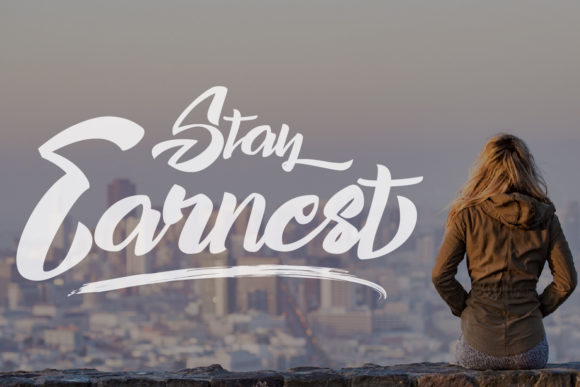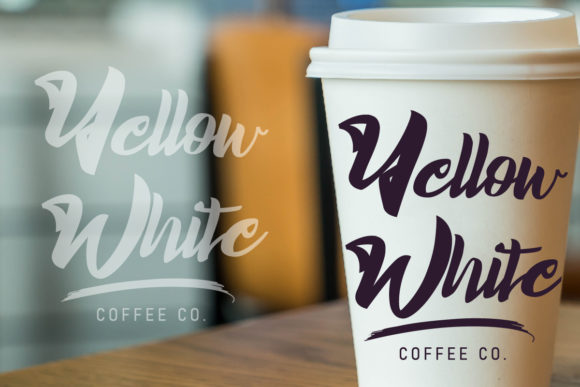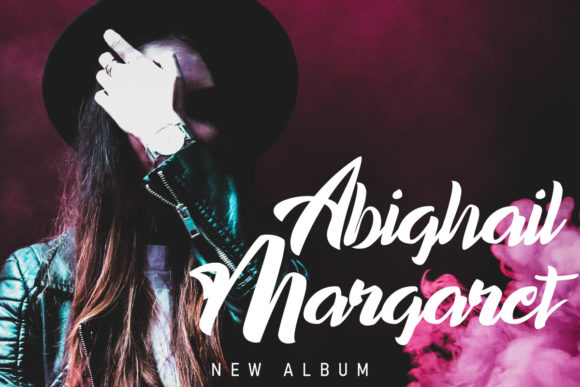
Introduction to Insightful Font
As a designer, have you ever found yourself pouring over a blank canvas, waiting for inspiration to strike? For many of us, it’s in those quiet moments of creativity that we stumble upon the perfect font to elevate our project. For me, it was the moment I discovered the Insightful Font – an elegant script font that brings a touch of timeless sophistication to any creative project.
With its impeccable form and contemporary atmosphere, the Insightful Font is the perfect design resource for anyone looking to add a high-quality, elegant touch to their work. Whether you’re working on a logo, a brochure, or a website, this font is sure to impress. And the best part? It’s PUA encoded, making it easy to access all its beautiful glyphs and swashes with ease – perfect for those intricate, custom designs that require a bit of flair.
Key Features of Insightful Font
- High-quality font design with a transparent background, making it ideal for creative projects that require a clean and minimalist aesthetic.
- Designed to be highly legible, with a clear and concise typography that is perfect for use in design resources such as logos, brochures, and websites.
- Resolution-independent, ensuring that the font remains crisp and clear at any resolution, from low-resolution screens to high-quality prints.
- Unique characteristics include a modern and sleek design, with subtle nuances that add depth and interest to any text-based element.
- Perfect for designers looking for a high-quality, free design resource that can elevate their creative project to the next level.
Honest Review: Insightful Font
I’ve had the opportunity to try out the Insightful Font, and I’m excited to share my thoughts with fellow designers.
What works well is its versatility. ✨ The font is perfect for a creative project where you need to convey a sense of professionalism without being too formal. It’s also great for using as a design resource for presentations, reports, or even branding materials.
One of the standout features of the Insightful Font is its clean and modern aesthetic. ✨ The transparent background allows for easy customization and pairing with other design elements.
Here are some key features that make it a great addition to your design arsenal:
- High quality font suitable for a variety of projects
⚠️ However, I did find that the font lacks a bold weight, which might limit its use in certain situations. Additionally, the font family could benefit from more variations to increase its versatility.
Overall, I’m impressed with the Insightful Font’s performance. It’s a solid choice for designers looking for a high-quality, free design resource.
Tips for Getting the Most Out of Insightful Font
Insightful Font is perfect for designers who want a unique and high-quality font for their creative projects. Some common use cases include:
- Typography projects
- Brand identity
- Marketing materials
Lato is similar to Insightful Font in its modern and clean aesthetic, but it has a more subtle and understated feel. Lato is ideal for projects that require a high-quality design resource with a transparent background.
Yes, the Insightful Font is designed to work well with transparent backgrounds, making it ideal for creative projects that require a high level of design flexibility. This feature allows you to easily integrate the font into your design without worrying about background compatibility issues.